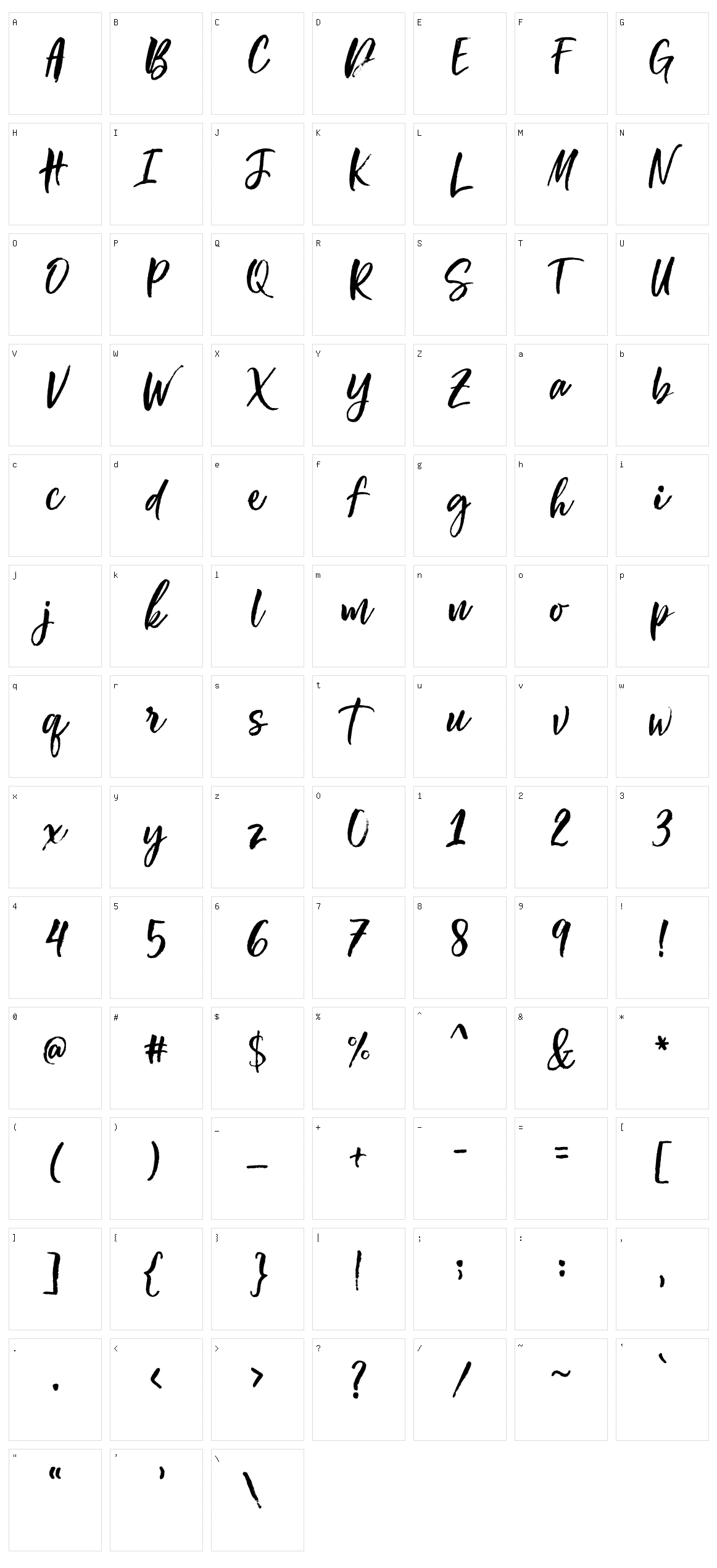
So, yeah, let me introduce to you my newest font---not exactly new because honestly this was created way back 2017, but I decided to publish it this year---named "Beautiful Day."
This is a stunningly elegant brush typeface that is perfect for almost every design you wish to create.
This font comes with a bonus font file containing a collection of catchwords, doodles, borders and a wide array of swashes that you can incorporate into your design.
Not just that, the full commercial version offers opentype features such as ligatures (double letter ligatures), contextual alternates, and 3 stylistic sets. [SEE IMAGES FOR DETAILS]
By mixing and matching the different stylistic sets, you can add uniqueness and variety to your design and make it look like an authentic brush lettering. How cool is that?